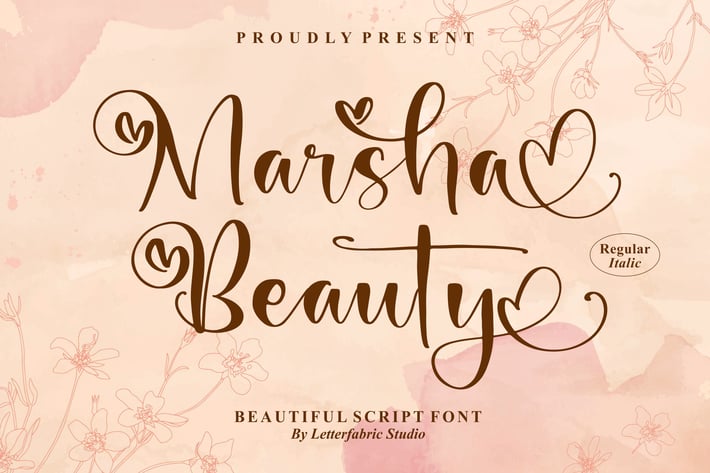
Marsha Beauty Beautiful Script Font
Marsha Beauty is a charming script font with graceful curves and romantic touches. Designed to bring elegance and warmth to your projects, this font is perfect for wedding invitations, branding, greeting cards, and creative typography. Its stylish alternates and smooth flow make it versatile for both digital and print use.
+ Elegant script style with heart-inspired swashes
+ Regular & italic versions included
+ Stylistic alternates and ligatures
+ International characters support
+ Smooth curves for a natural handwritten feel
Add a touch of beauty and romance to every word with Marsha Beauty Script Font!